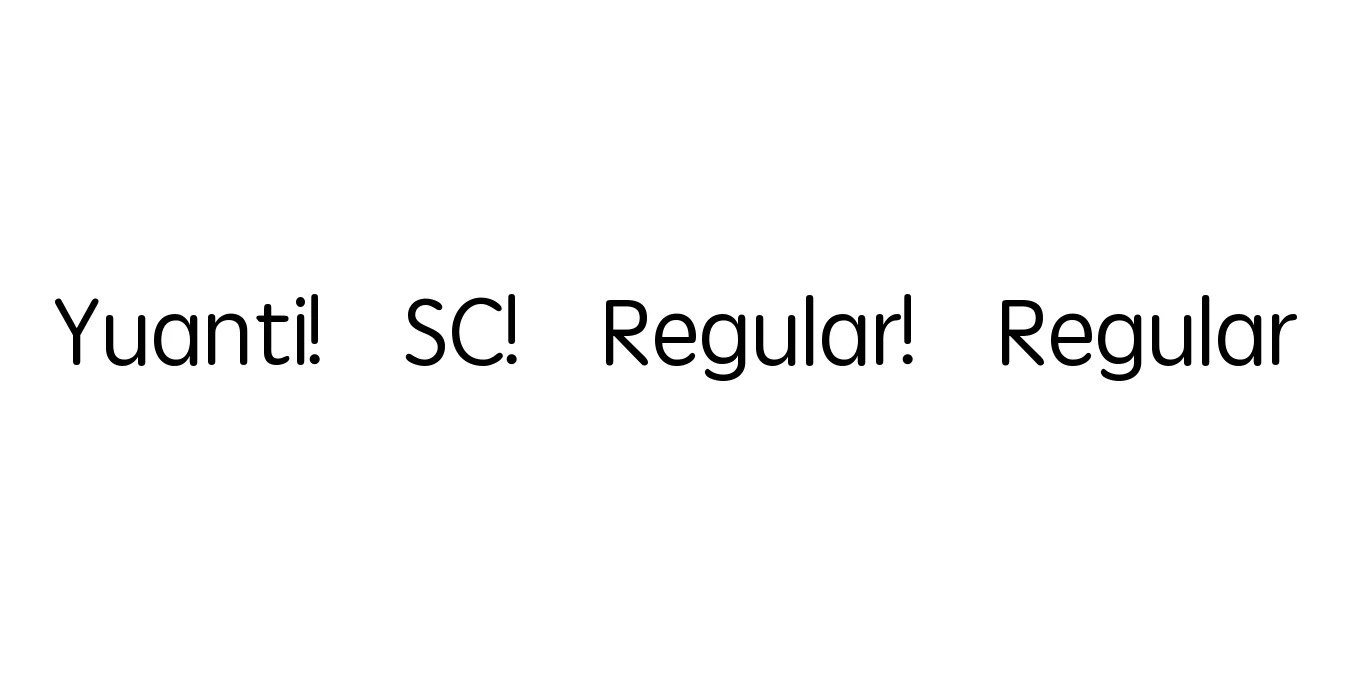
Yuanti SC Regular Regular
Designed by DynaComware
| Category | Rounded Sans-serif |
| Designer | DynaComware |
Yuanti SC Regular is a contemporary simplified Chinese typeface characterized by its rounded stroke endings and soft, geometric construction. Developed by the renowned foundry DynaComware, this font belongs to the 'Yuan' or rounded Gothic style, which offers a more approachable and friendly alternative to traditional Heiti or Songti typefaces. Its design emphasizes clarity and warmth, making it particularly effective for digital environments where readability and a modern aesthetic are paramount.
The typeface is widely recognized for its inclusion in major operating systems, notably within Apple's macOS and iOS, where it serves as a primary choice for high-resolution displays. By balancing traditional character structures with a clean, humanistic touch, Yuanti SC excels in diverse applications ranging from mobile application interfaces to digital publishing and casual branding. It remains a staple for designers looking for a professional yet soft typographic voice in the Chinese language space.
Excellent for UI elements due to its high legibility and soft aesthetic on small screens.
Ideal for e-books and blogs seeking a friendly, accessible reading experience.
Perfect for lifestyle, educational, or children-oriented brands requiring a warm tone.
Great for graphic overlays and digital content where a modern, clean look is needed.